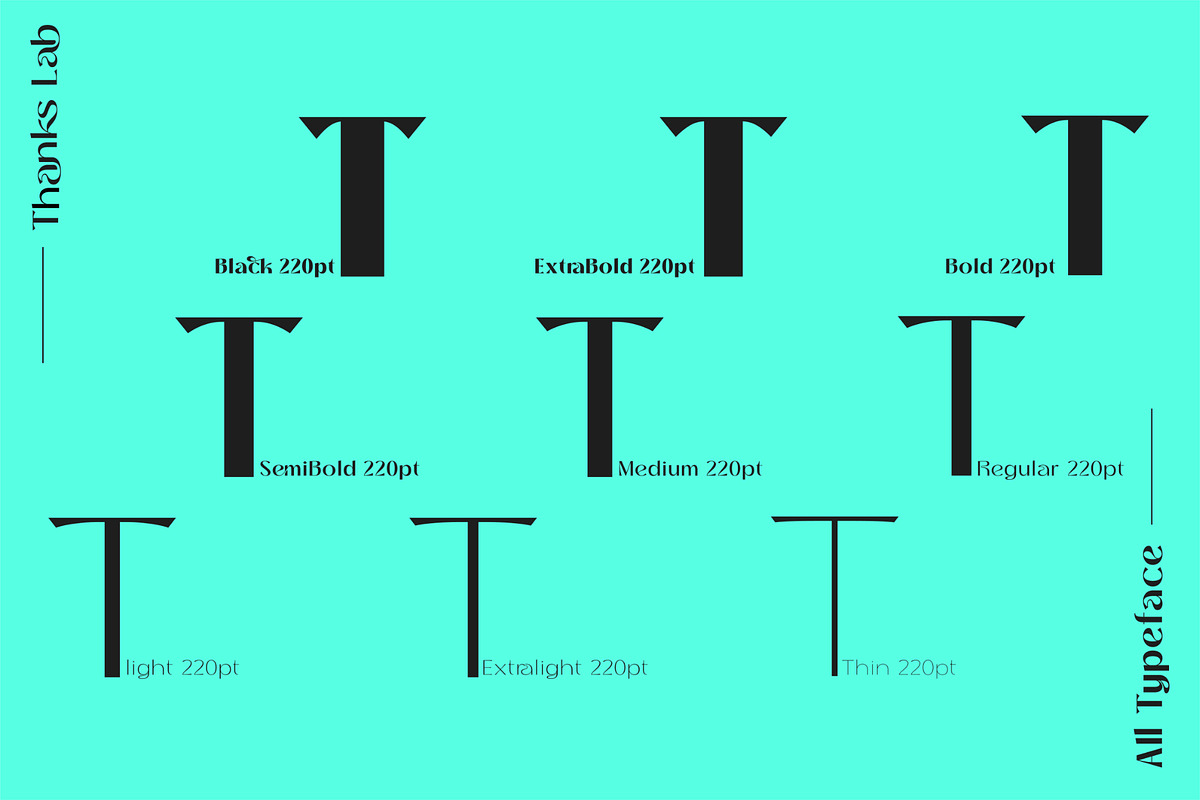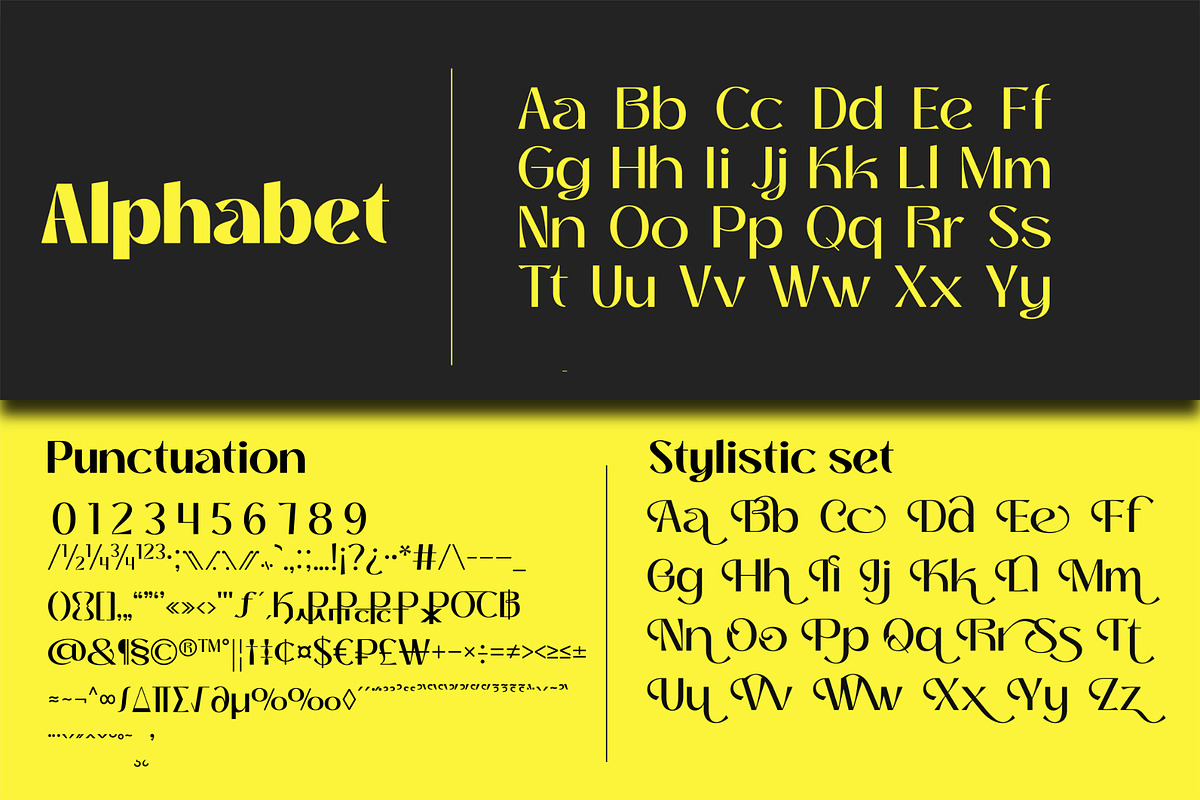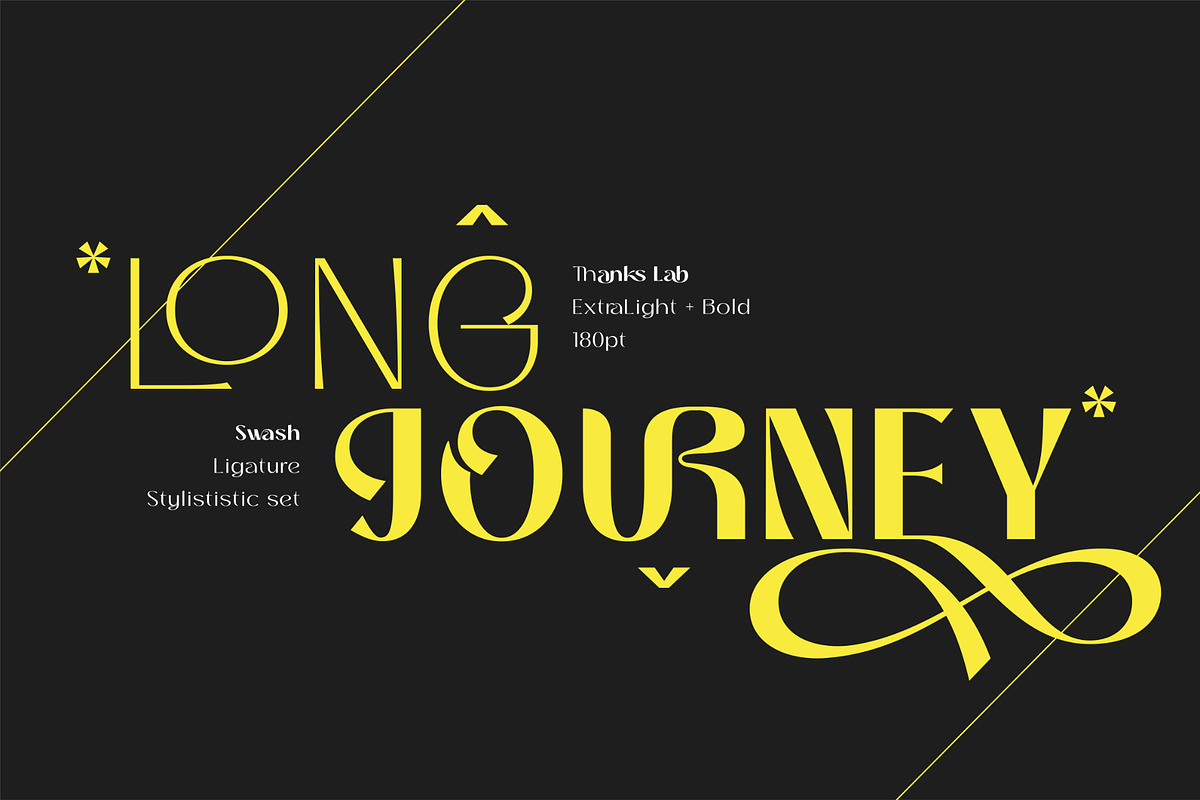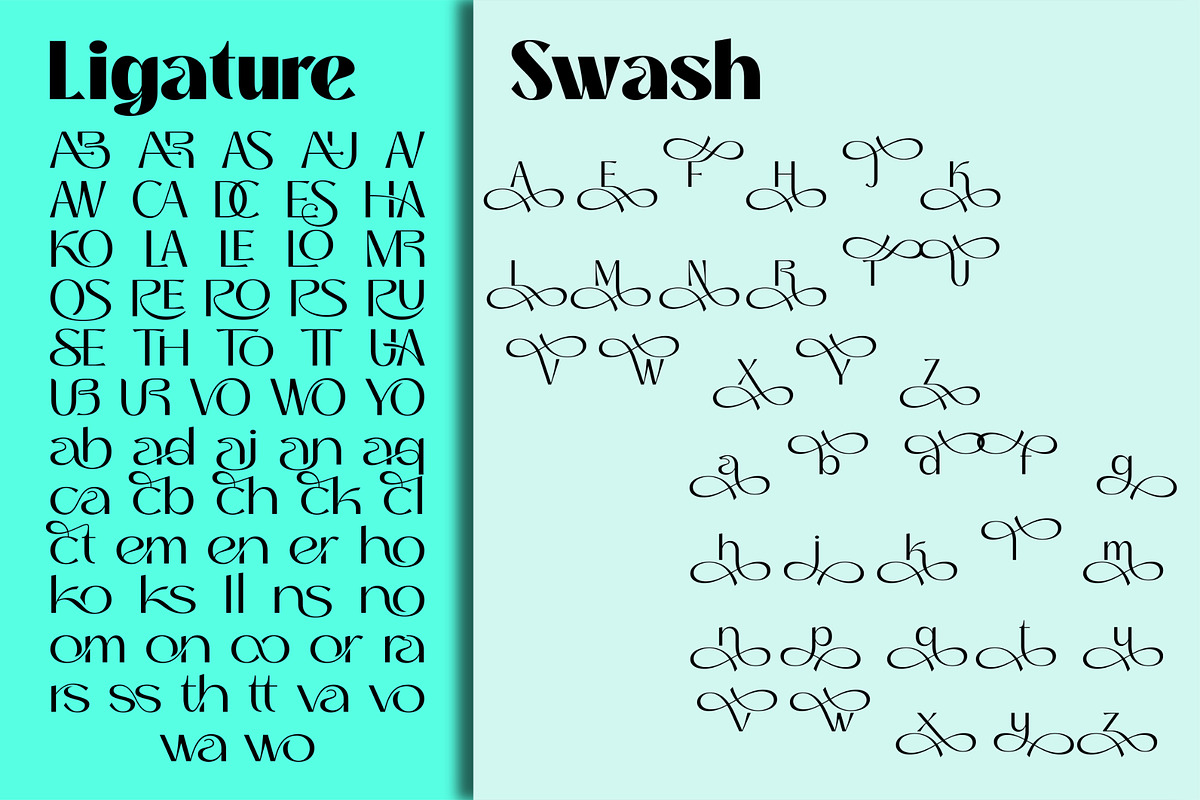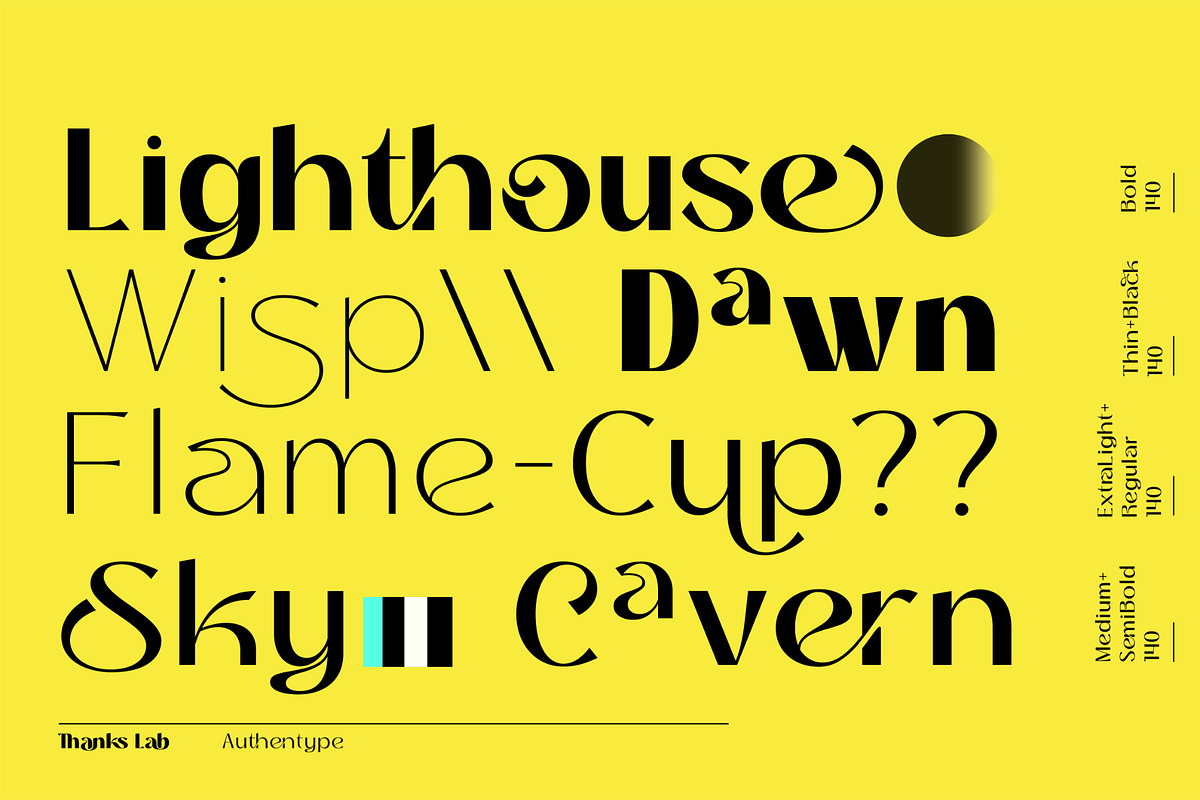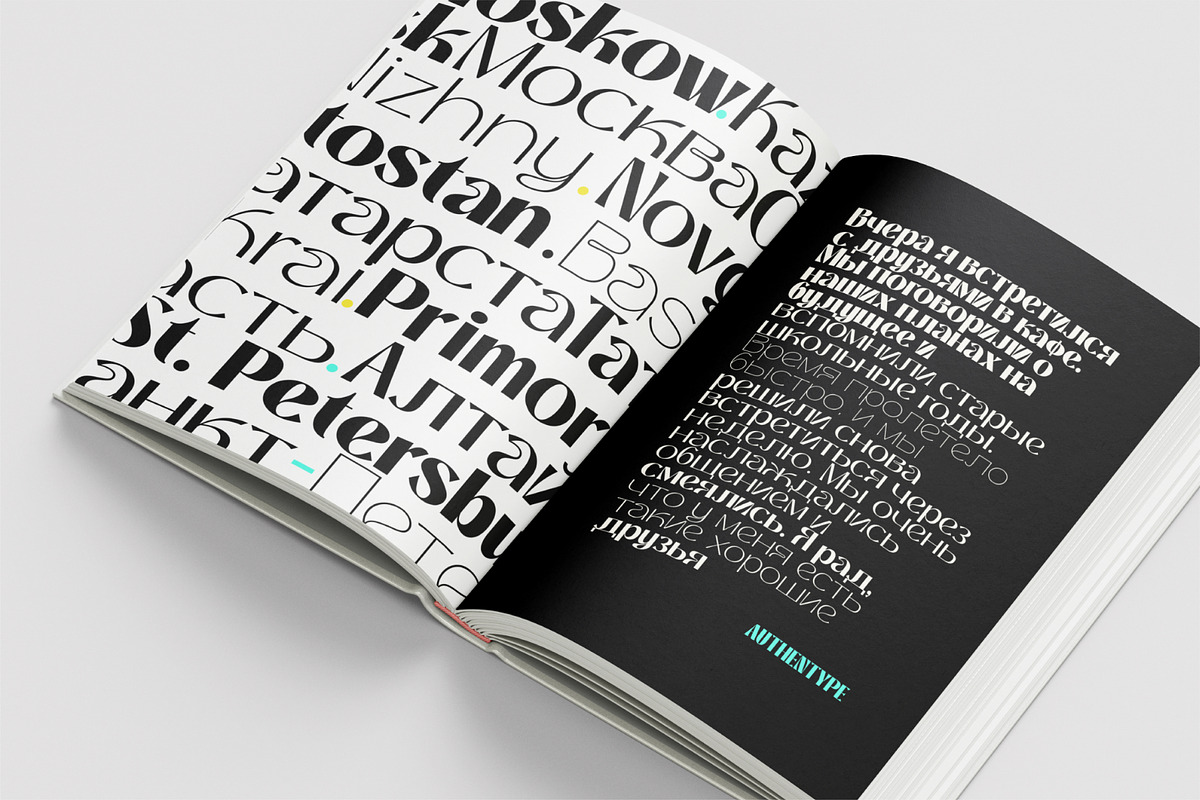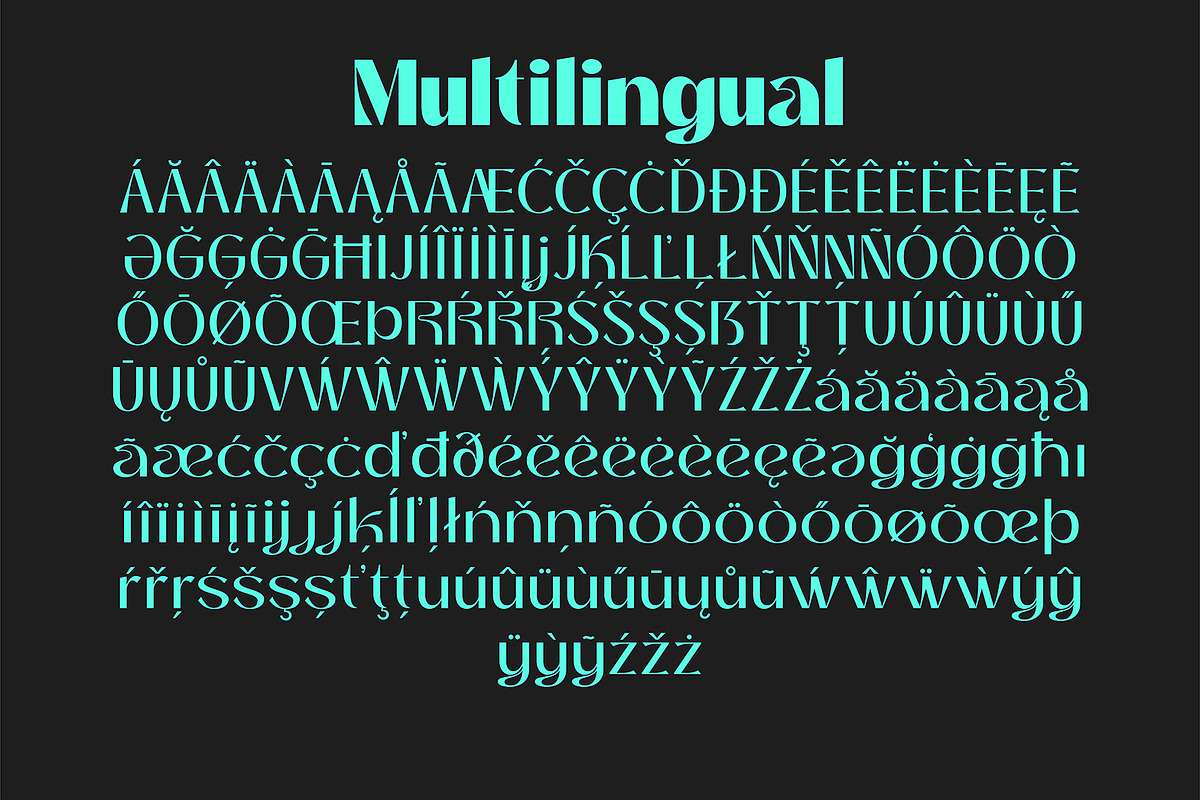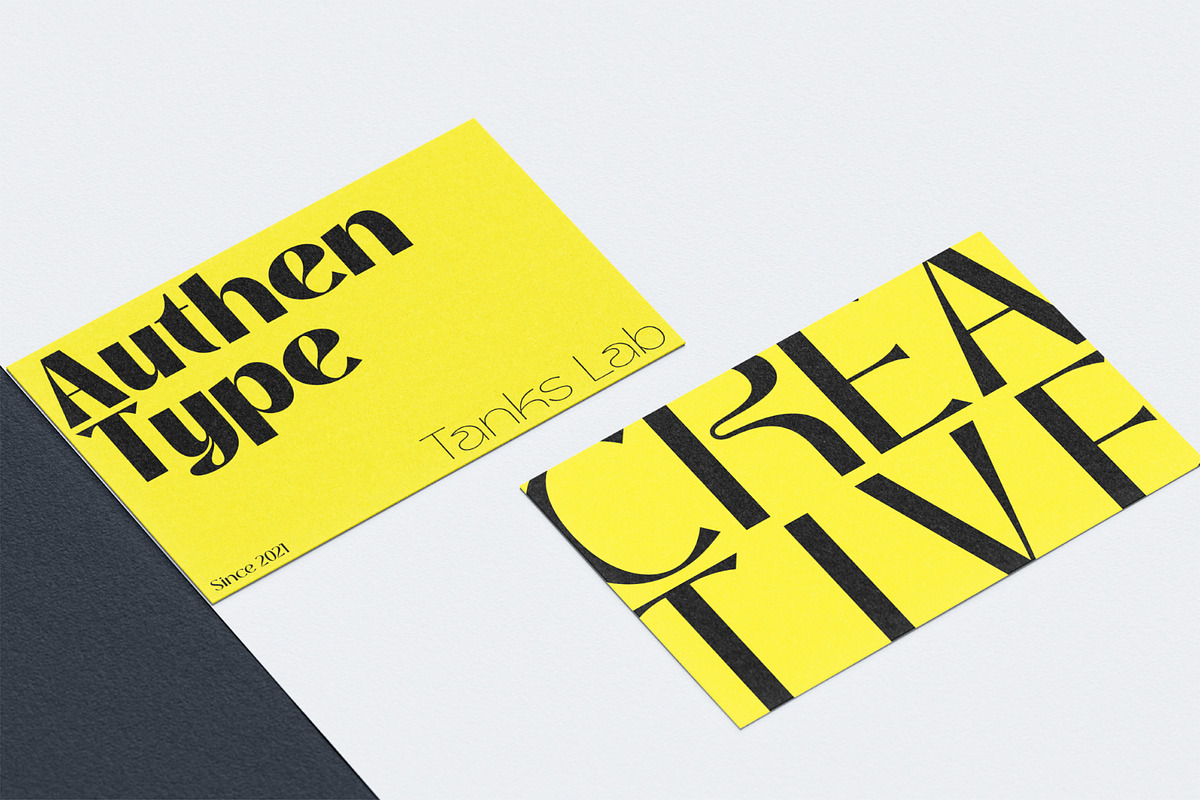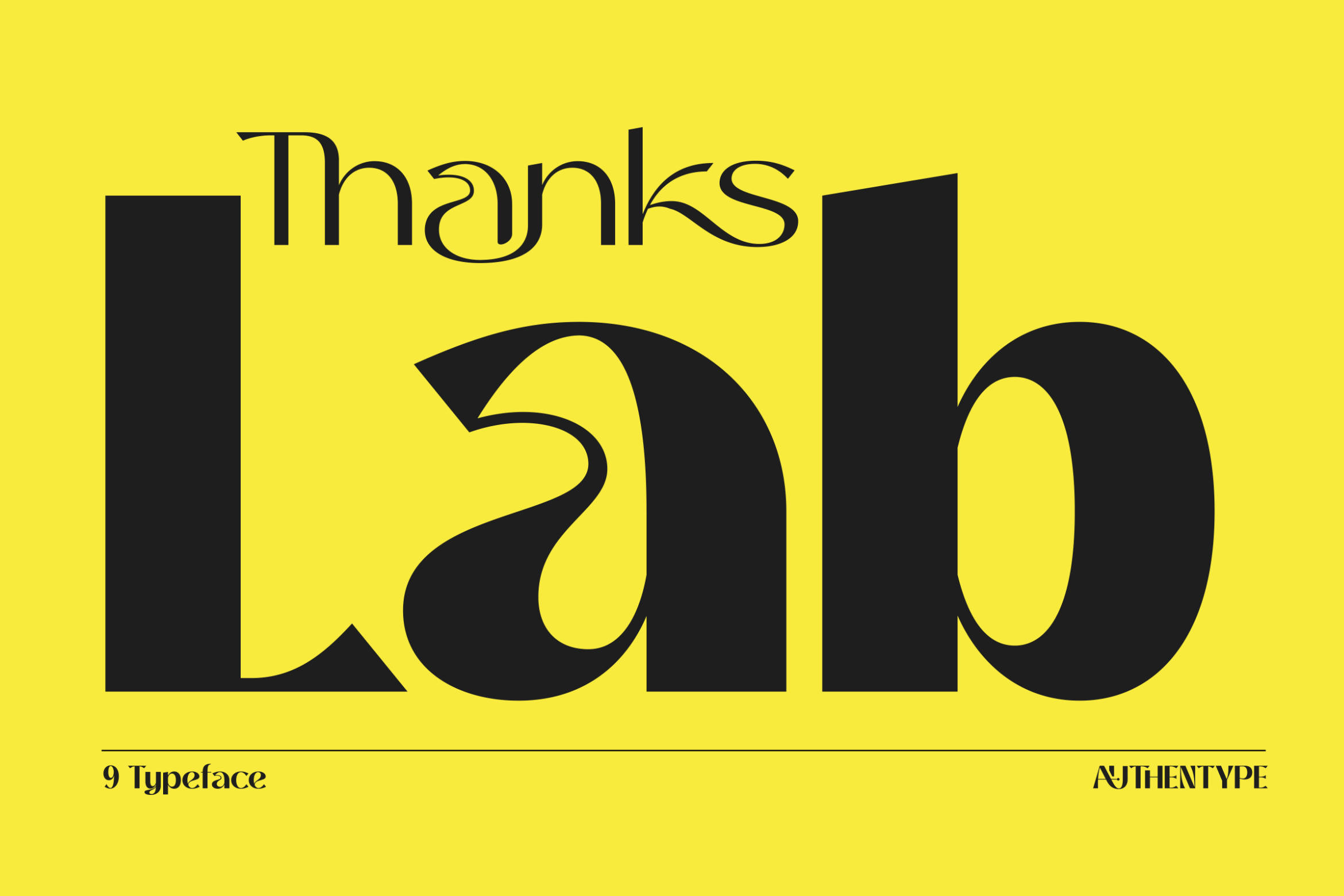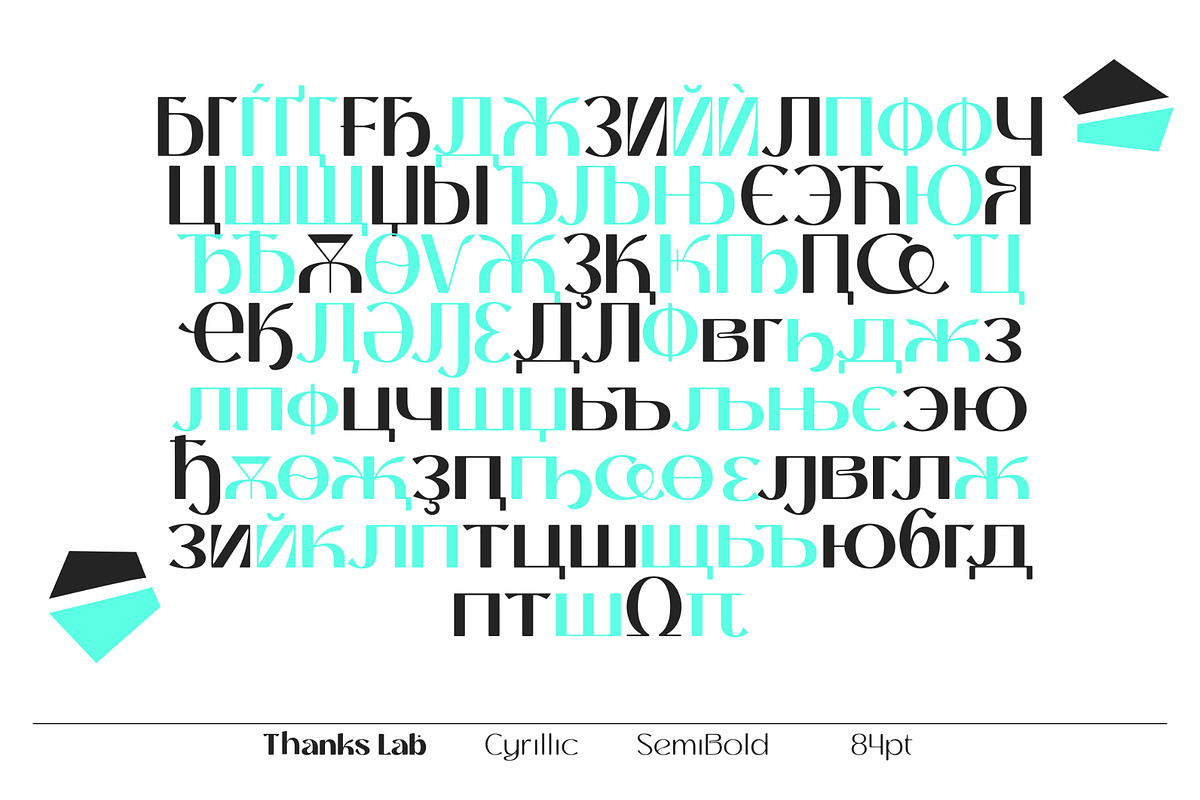
THANKS LAB – FUTURISTIC SOFT FONT
THANKS LAB is a premium futuristic soft font that combines sleek modern design with smooth, rounded edges for a bold yet approachable aesthetic. Perfect for branding, posters, headlines, UI/UX, and sci-fi-themed projects, this font is crafted to inspire creativity. With full support for Latin, Cyrillic, and Greek alphabets, THANKS LAB Futuristic Soft Font ensures global versatility for all your design needs.
File Formats: OTF, TTF, WOFF, WOFF2 for broad compatibility across platforms. Futuristic Design: Unique characters featuring geometric and modern elements that grab attention. Multilingual Support: Supports Latin, Cyrillic, and Greek alphabets, making it adaptable for various languages. Exclusive Ligatures: Special letter combinations designed for smooth and aesthetic text flow. Stylistic Sets: Alternative style variations to enhance creativity and personalize your designs. Swashes: Decorative elements for specific letters, adding an elegant and dynamic touch to your projects.
Uses: Branding: Logos and brand identities with a modern, innovative, and bold impression. Digital Design: Perfect for apps, websites, and interfaces with a technological or futuristic theme. Posters and Headlines: Delivering a strong, attention-grabbing presence for promotional media. Multilingual Content: Full support for Cyrillic, Greek, and Latin alphabets ensures usability in multiple languages. Creative Projects: Ideal for sci-fi, gaming, technology, or any innovative design themes.